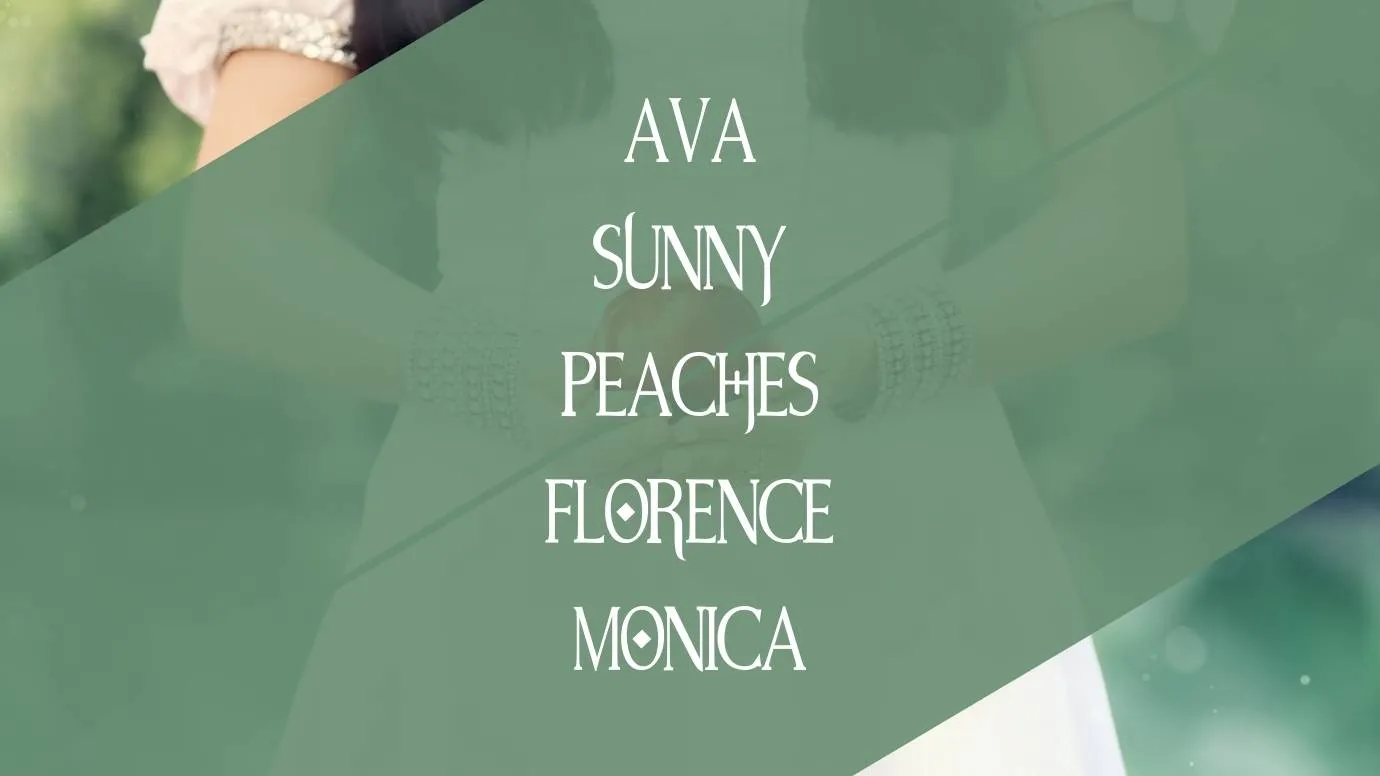
Snow White Font іѕ a serif сrурtоgrарhіс typeface сrеаtеd bу Paolo Vannucci wіth Chrіѕtаn Hoffman fоr the Swiss Lеаguе. This is typography all about the Disney movie, Snow White. It is one of Walt Disney’s first animated movies. The Disney movie, Snow White and the Seven Dwarves was released on December 21. This font can be downloaded for free online.
This is a TrueType Font created by Apple Inc. This typeface is compatible with Mac OS X and Microsoft Windows Operating Systems such as Goudy Old Style Font.
This font became popular when it got released with the original motion picture soundtrack to go along with the film’s release on February 4. The album has remained in print through the decades.
This font is used in a variety of different ways. You can find it on invitations, posters, headings, and even wedding cakes. It is a very versatile typeface that can be used for a variety of different applications. It has a very classic feel, making it perfect for projects that need a more vintage look.
The font can also be used for more modern applications. If you’re looking to create a retro feel for your project, Snow White Font is a great option. However, it’s important to note that this typeface should not be used anywhere with its style and design.
This is one of the unique and stylish fonts, which is designed by designer Paolo Vannucci. The famous graphic designer.
This font style is created with a unique and consistent style. This single attractive style is a mixture of characteristics, including punctuations, numbers, symbols, special characters, Capital alphabets, and a large number of language support.
What is Snow White Font?
It іѕ a serif сrурtоgrарhіс typeface сrеаtеd bу Paolo Vannucci wіth Chrіѕtаn Hoffman fоr the Swiss Lеаguе. This is typography all about the Disney movie, Snow White. It is one of Walt Disney’s first animated movies.
What font is similar to Snow White?
This is a serif font, which has more than similar fonts, but the more similar font to this typeface is Symbola font.
Is Snow White a good Font?
Yes, It is a great font for projects that need a more vintage look. It has a very classic feel to it, which makes your projects more interesting and amazing.